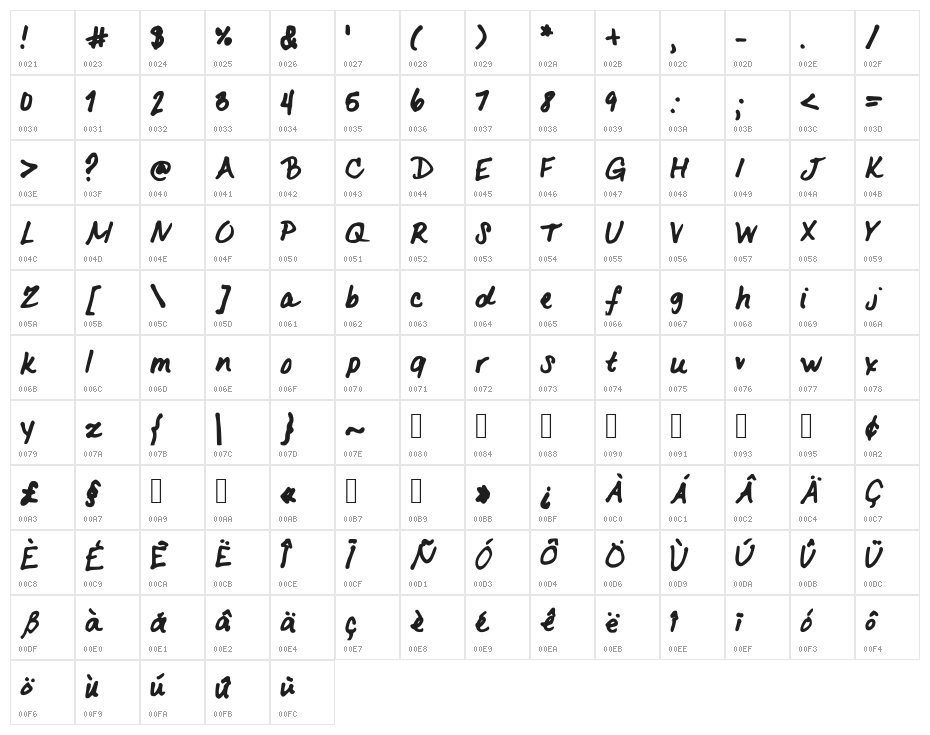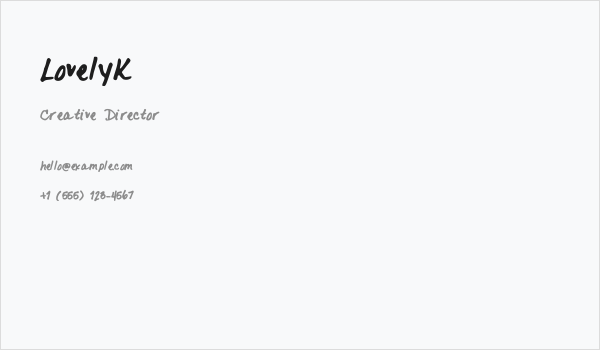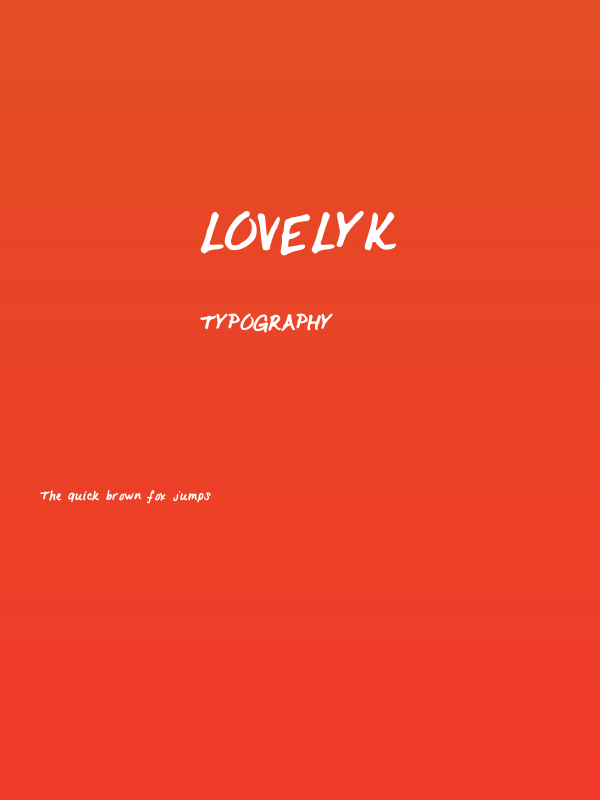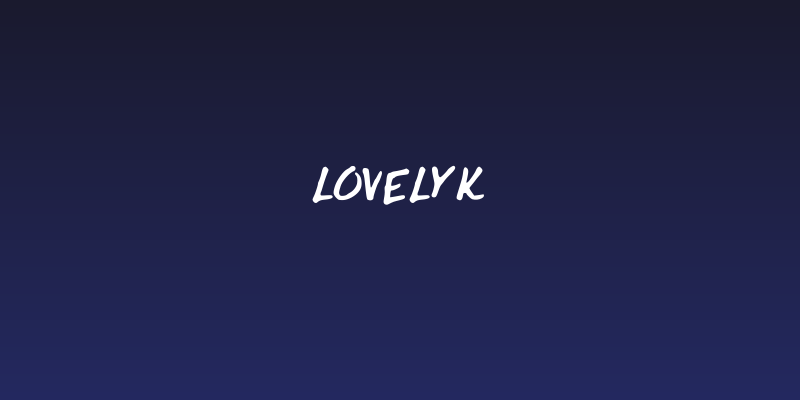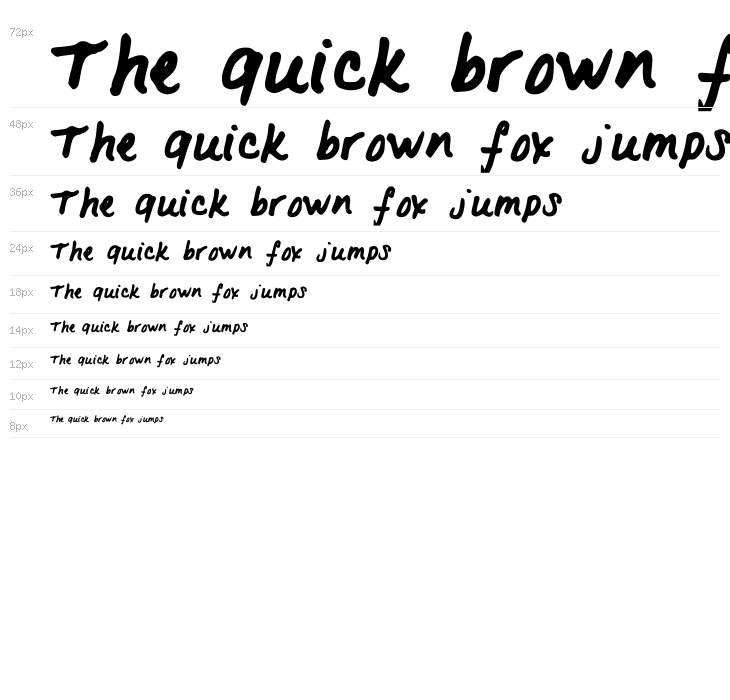
LovelyK Font
LovelyK Description
This font features a playful and casual handwritten style, characterized by its bold and slightly irregular strokes. The letters are crafted with a sense of spontaneity, giving them a lively and dynamic appearance. The uppercase and lowercase letters maintain a consistent flow, while the numbers and special characters complement the overall aesthetic. The font's organic feel makes it suitable for projects that require a personal touch or a sense of informality.
Overall StyleCasual, Playful
Use CaseLogos, Headlines, Creative projects
Proposed ProjectsIdeal for greeting cards, invitations, personal branding, and creative projects that require a friendly and approachable look.